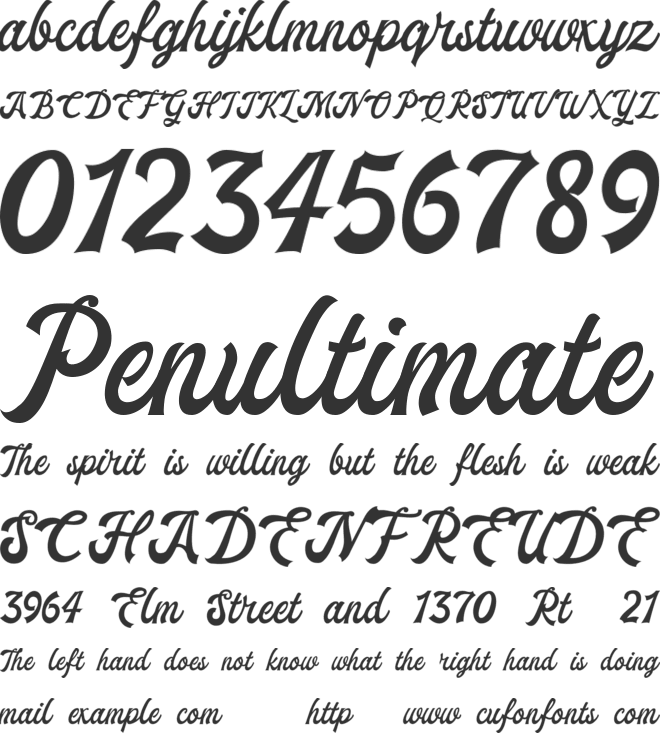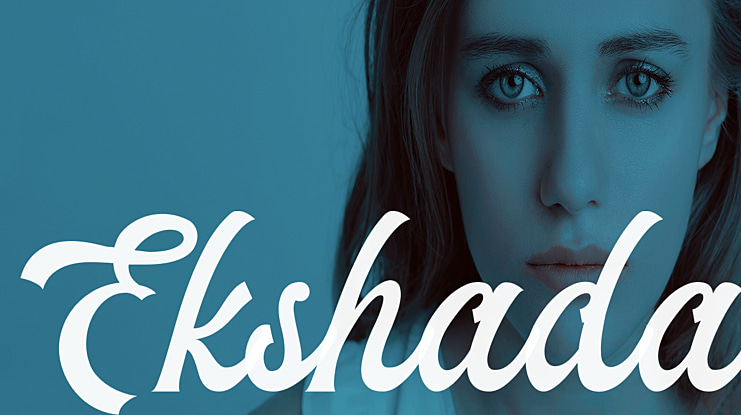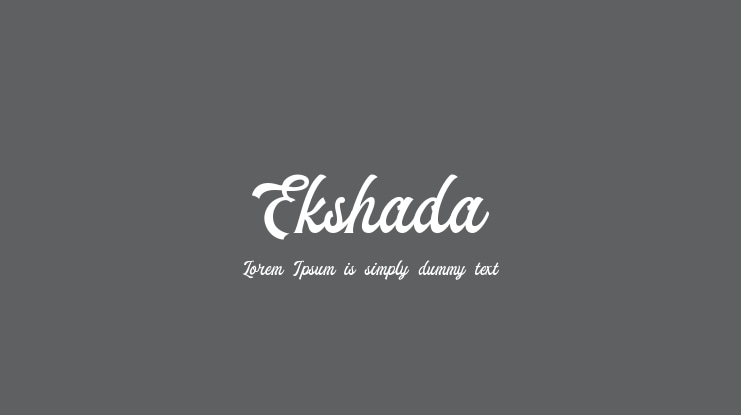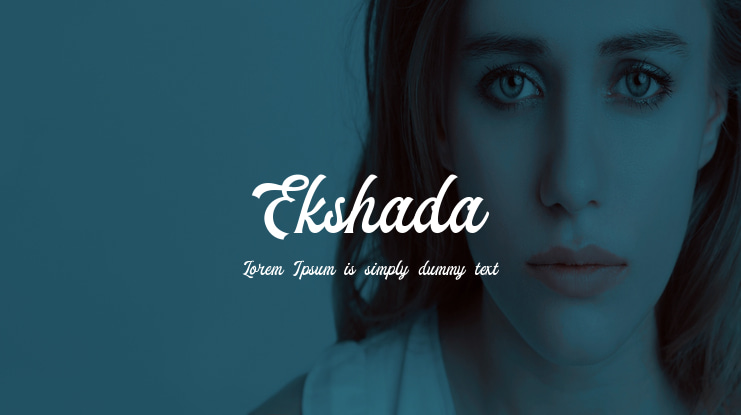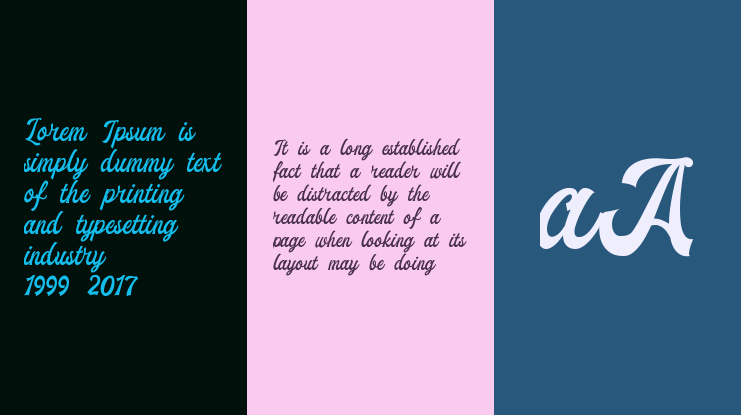
Ekshada Font
Ekshada Script is a handcrafted script, inspired by vintage posters and logo. This script typeface gives a feel of classic, vintage, and clear style looked like. Also comes with uppercase, lowercase, numerals FREE for personal use. If you need multilinguals set, opentype alternates, ligatures, some swash, and FREE illustrations to customize your designs you can buy in this link. https://creativemarket.com/sitintahitam/3595746-Ekshada-Script-BONUS-%21-%28UPDATED%29
Perfect to use for Logotype, Apparel Design, Poster, Label, Letterhead, and etc.